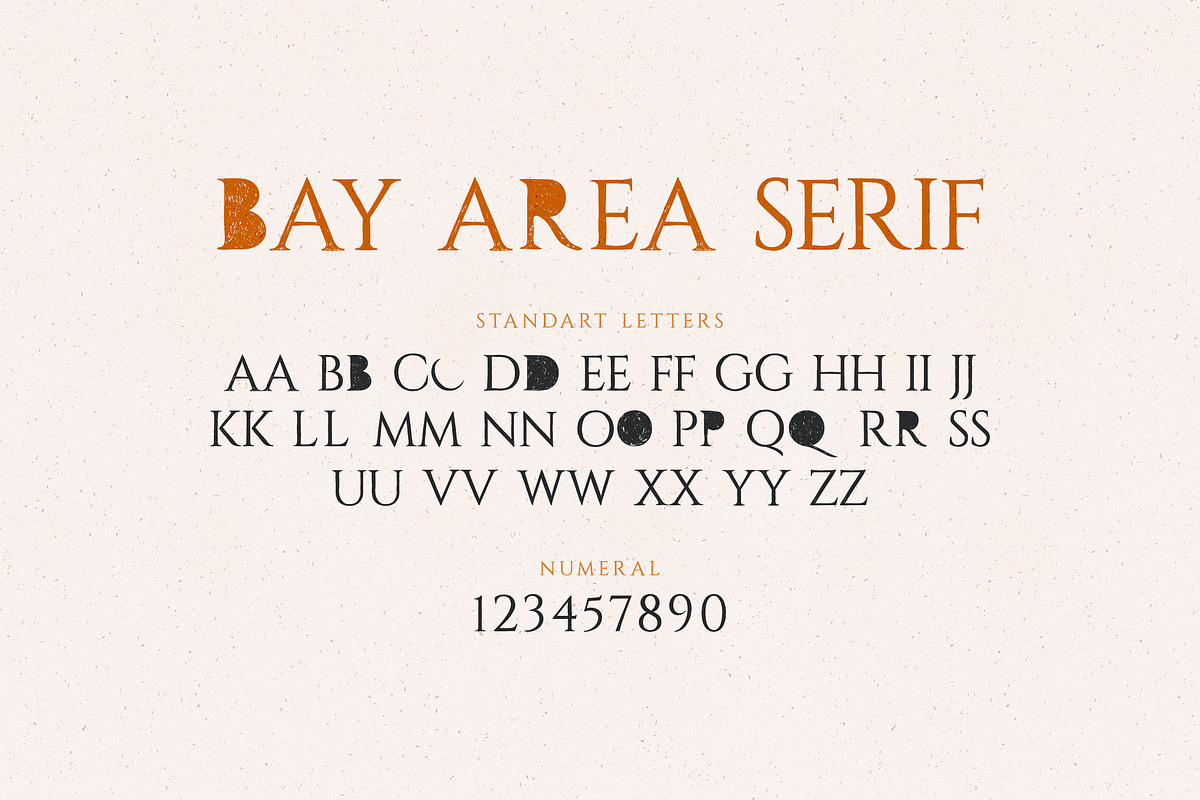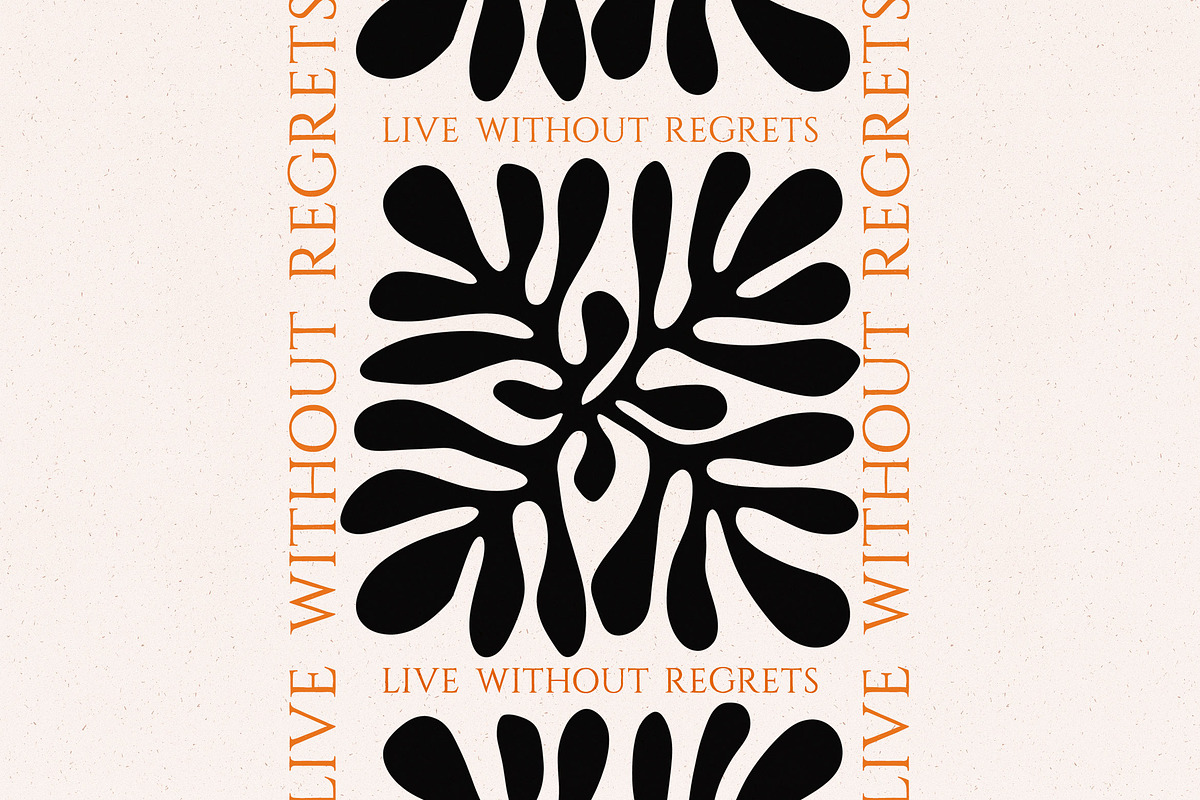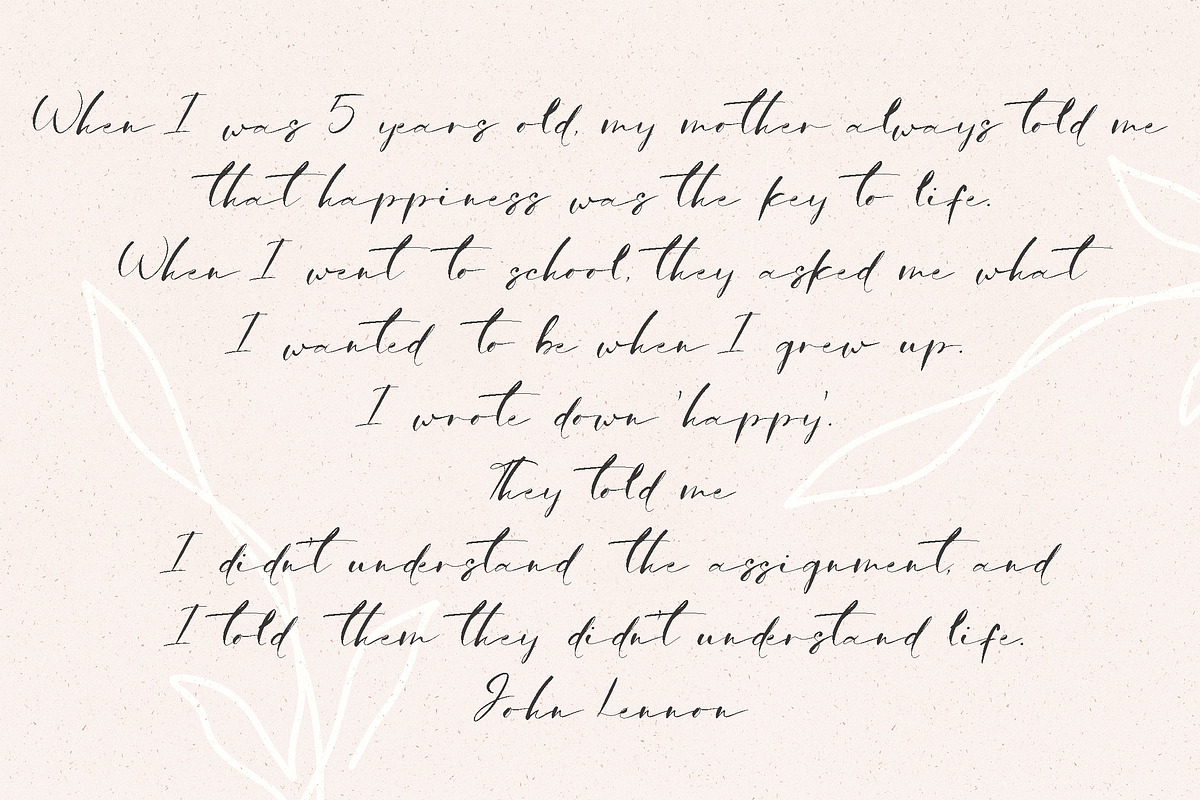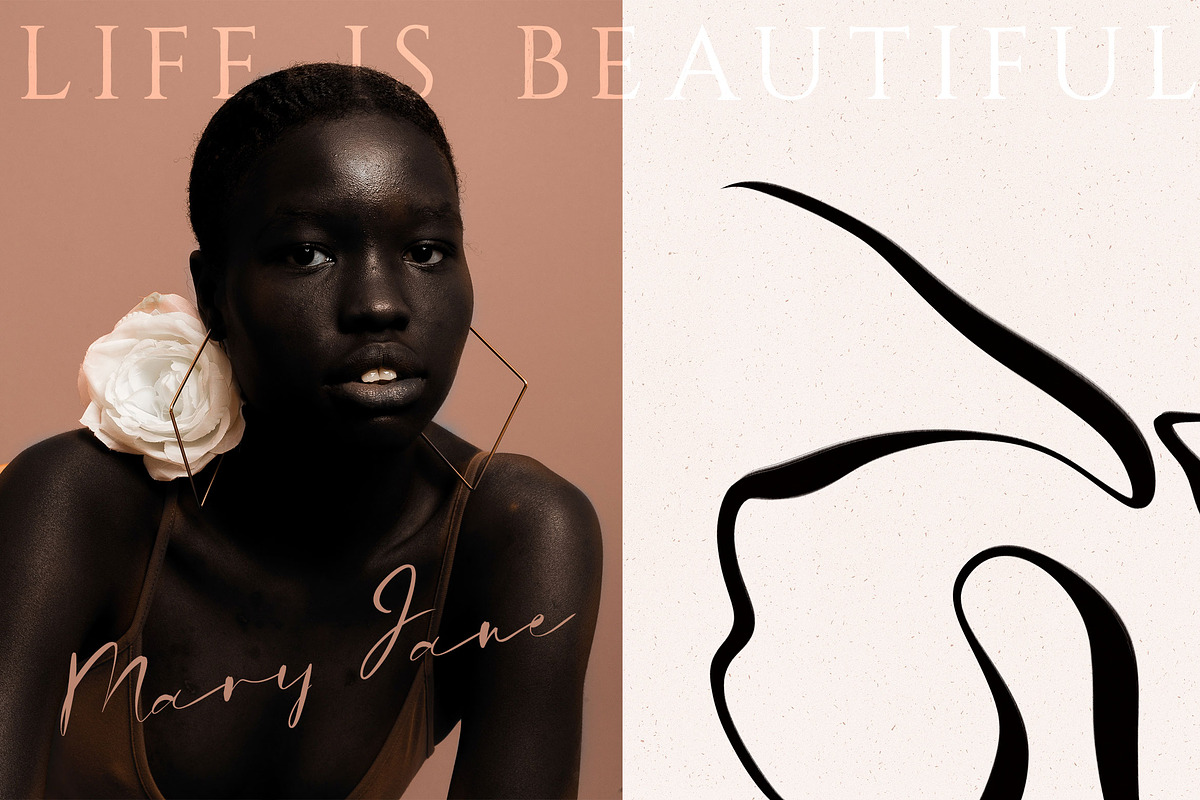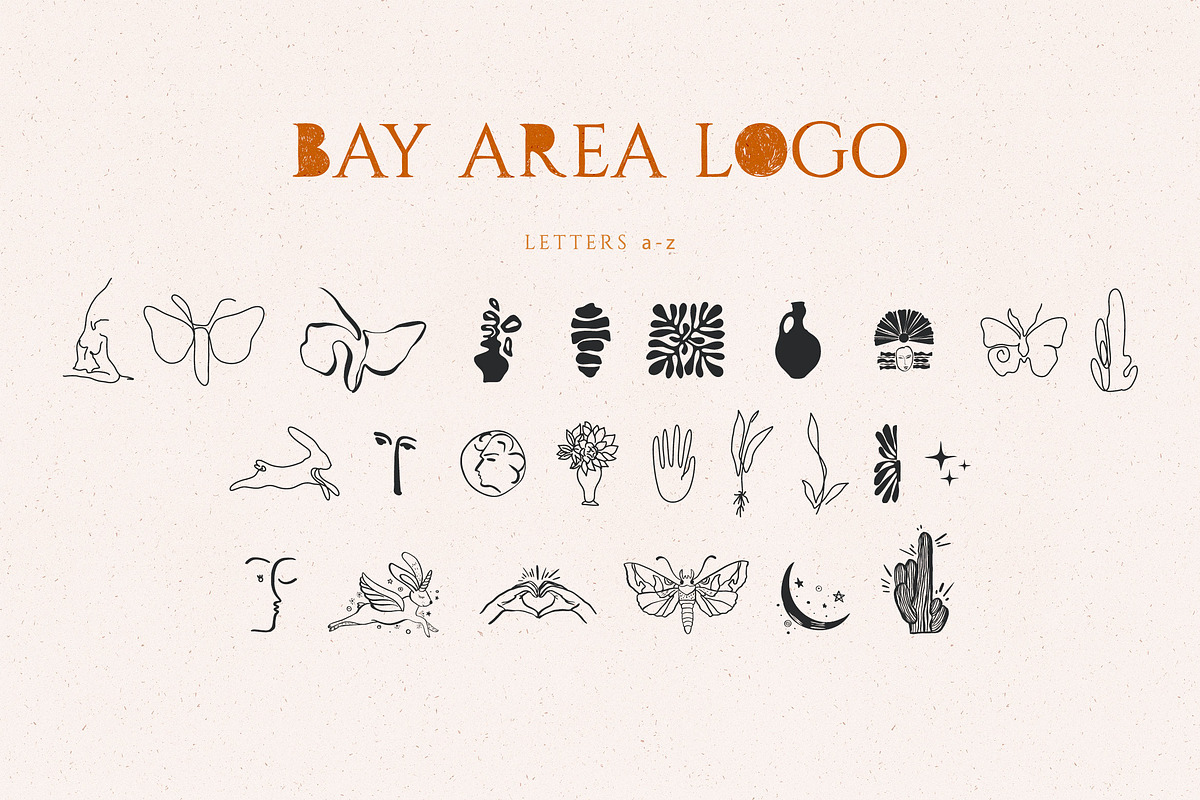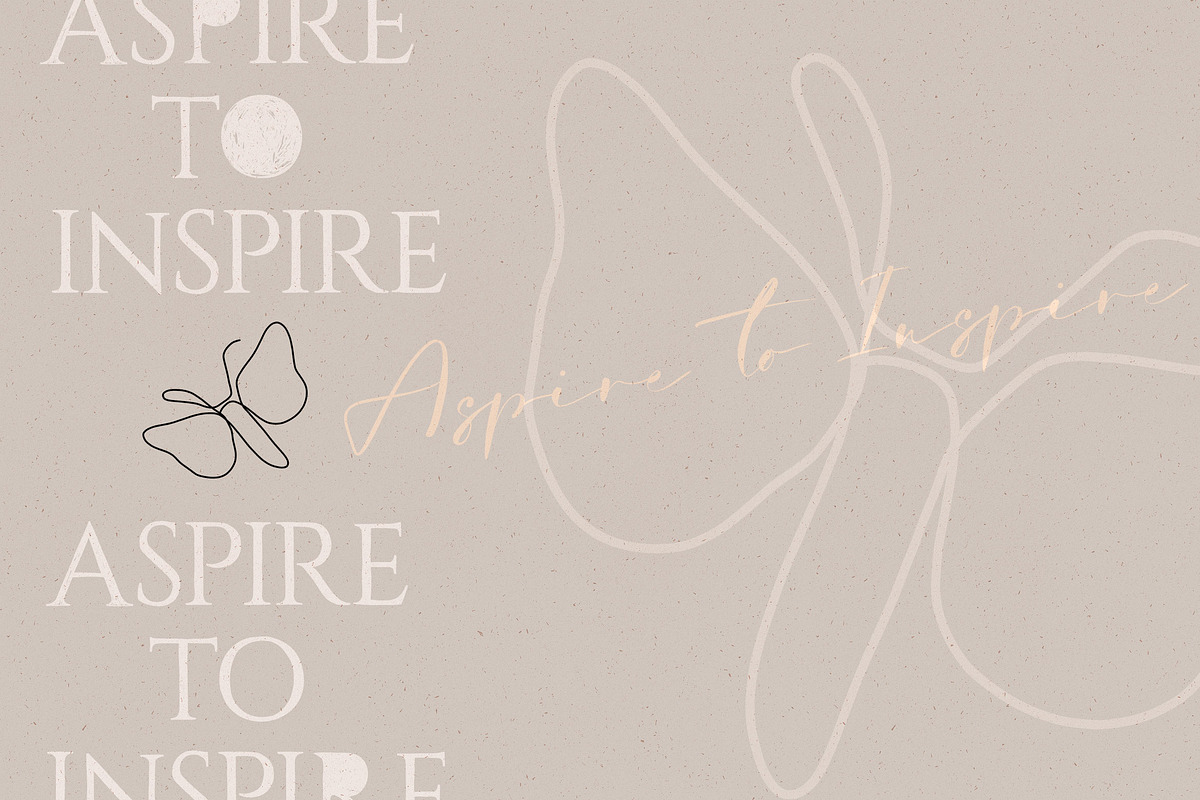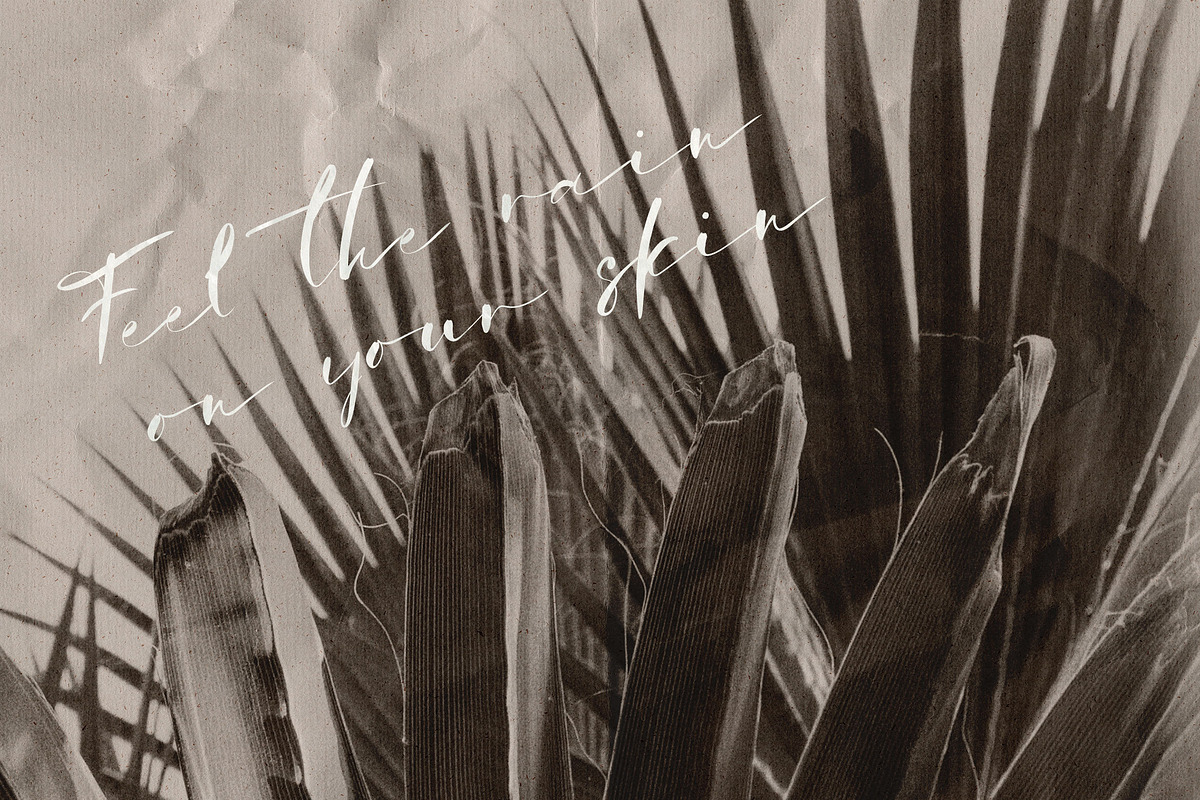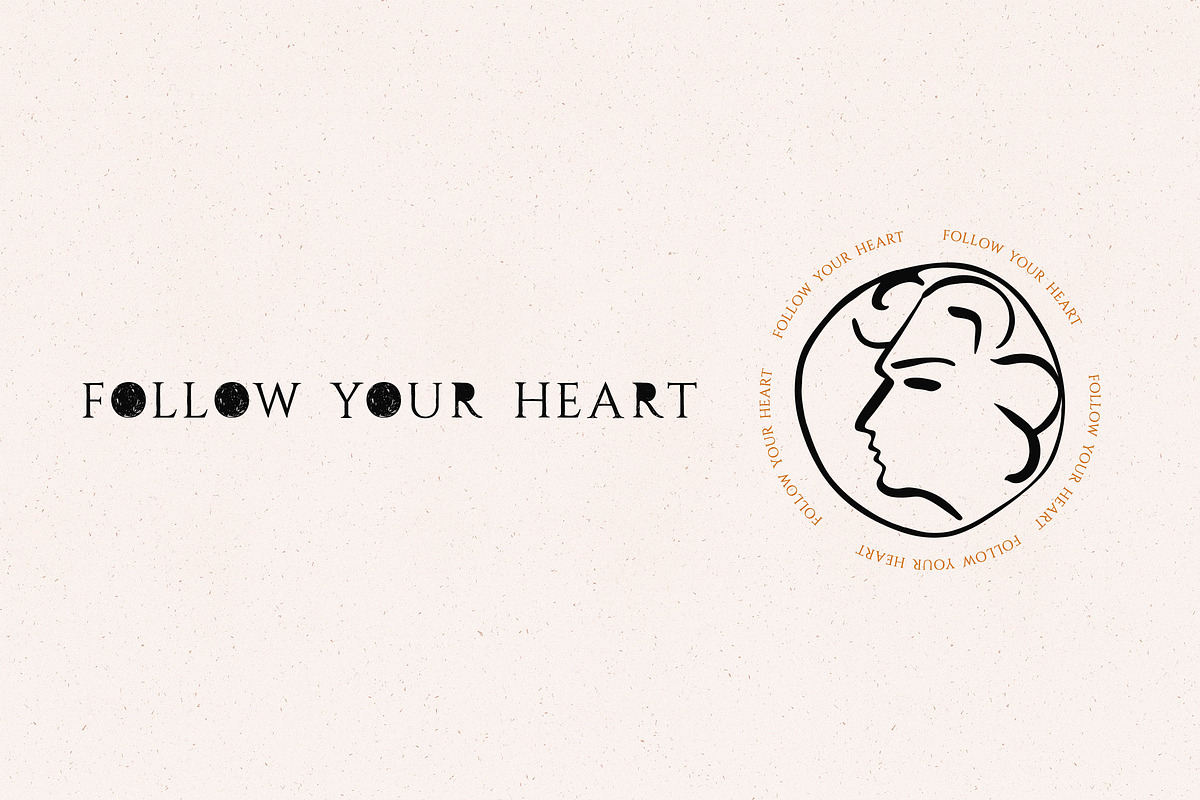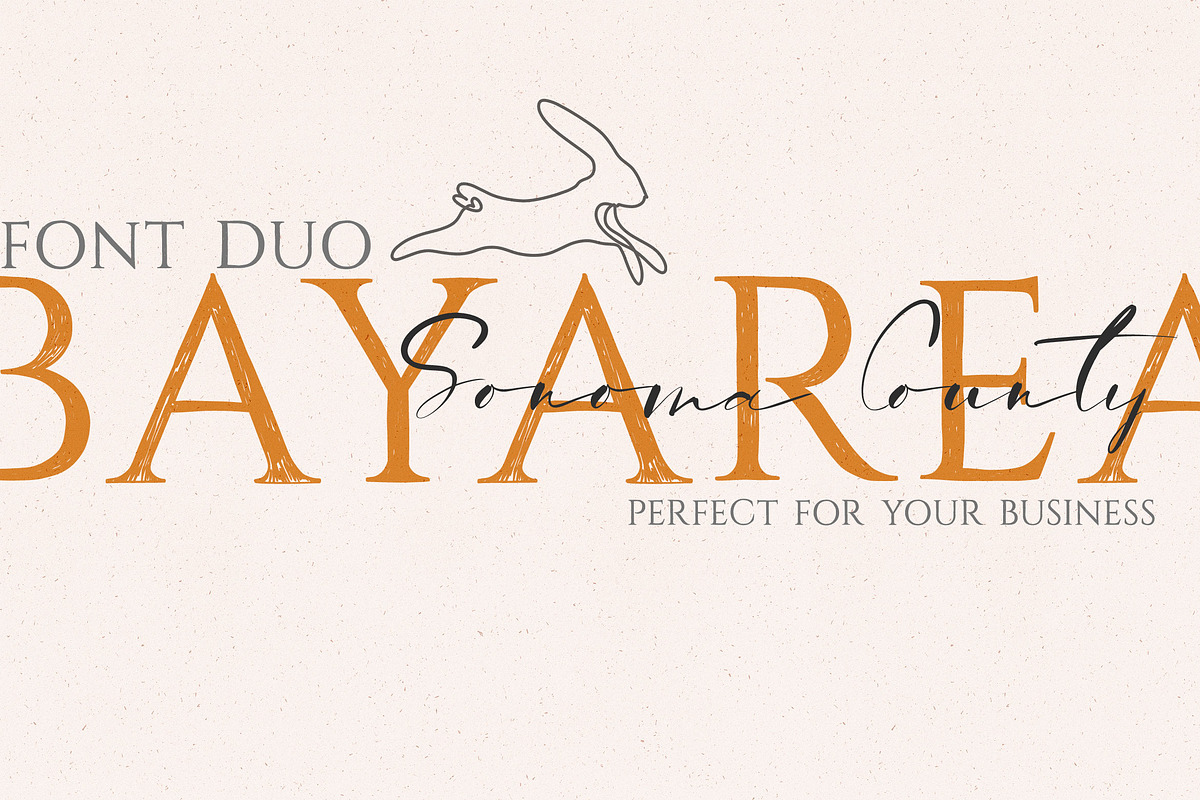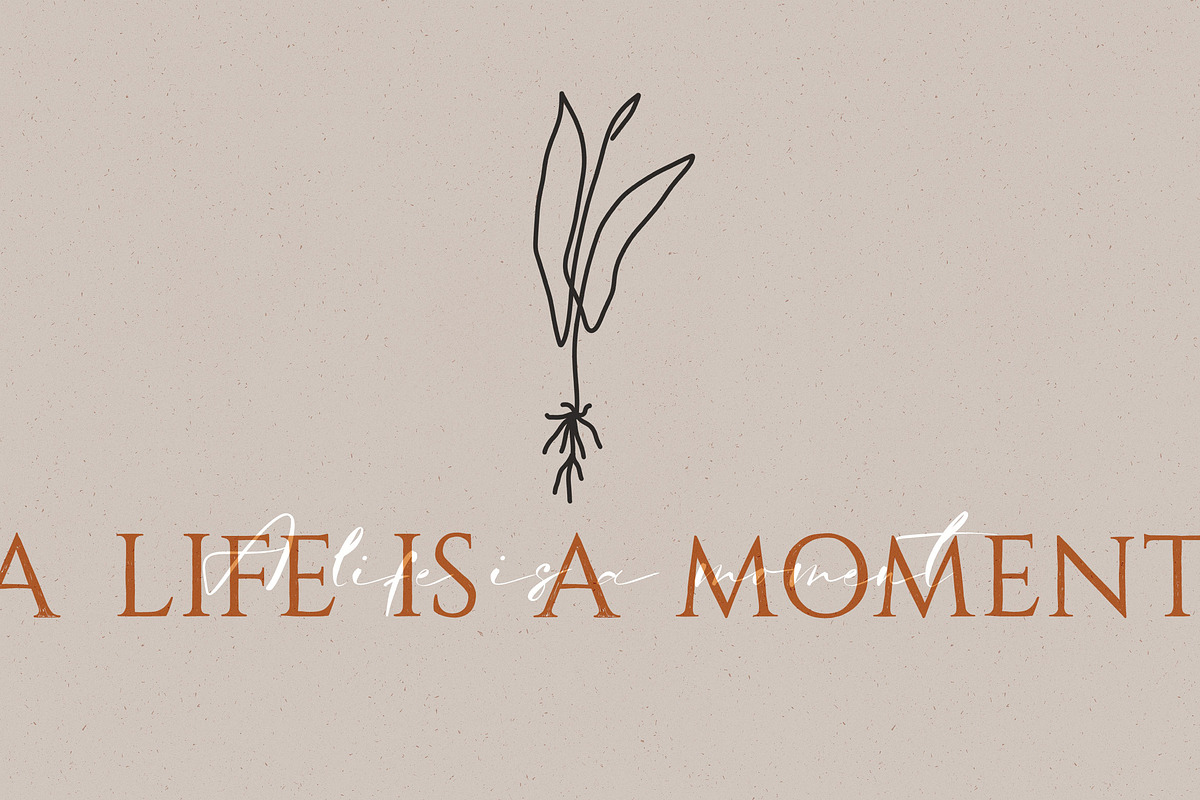
Bay Area Font Family
This lovely family is perfect for your stylish ideas! Here you will find a graceful and stretched script, as well as an uneven and sloppy serif, in addition I made a beautiful outline for you - a logo. You can use this family to create visual content on social networks, weddings, business cards, websites and any other products that will look appropriate.
The product includes 3 styles
- serif
- script
- logo symbols